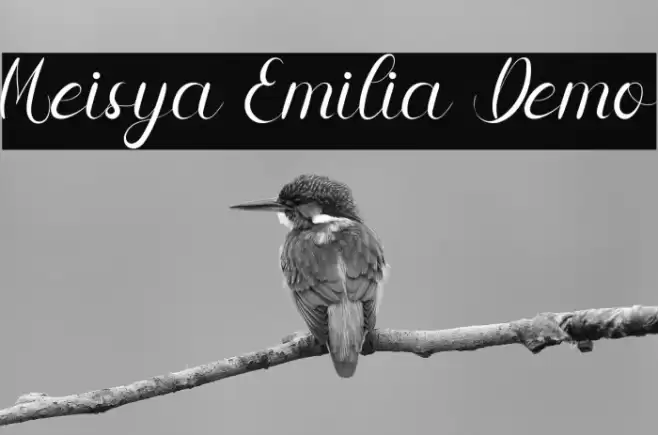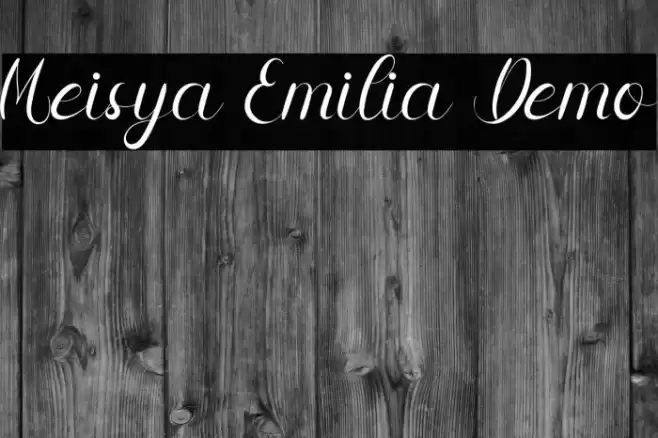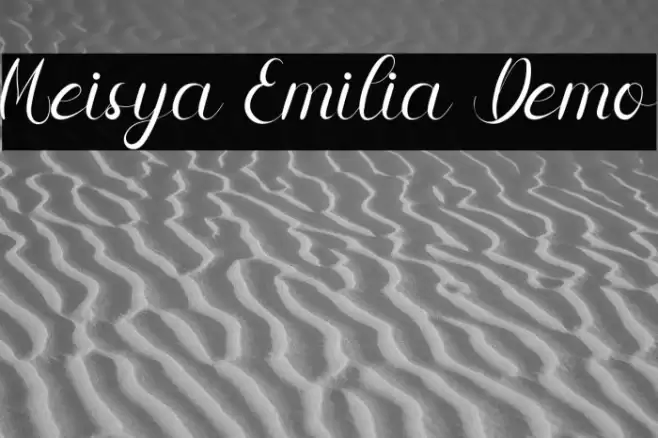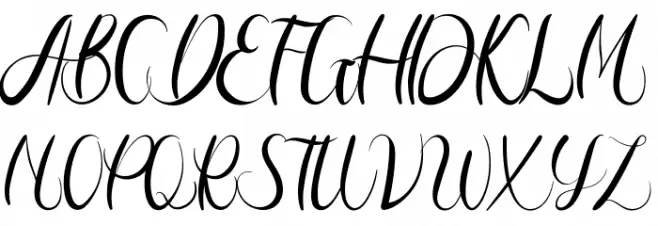
Meisya Emilia Demo Font
Meisya Emilia Demo Description
This font exudes elegance and sophistication with its flowing, cursive style. The characters are intricately designed with smooth, continuous strokes that create a sense of fluidity and grace. The uppercase letters are bold and prominent, while the lowercase letters maintain a delicate balance, offering a harmonious blend of strength and subtlety. The font's script nature is enhanced by its high contrast in stroke thickness, adding to its visual appeal. The overall design is reminiscent of classic calligraphy, making it suitable for projects that require a touch of refinement and class.
An elegant, high-contrast cursive font with a classic calligraphic style from Regular fonts.
- Proposed Projects: Ideal for wedding invitations, elegant branding, greeting cards, and upscale packaging.
- Overall Style: Classic
- Use Case: Logos, Invitations, Decorative text